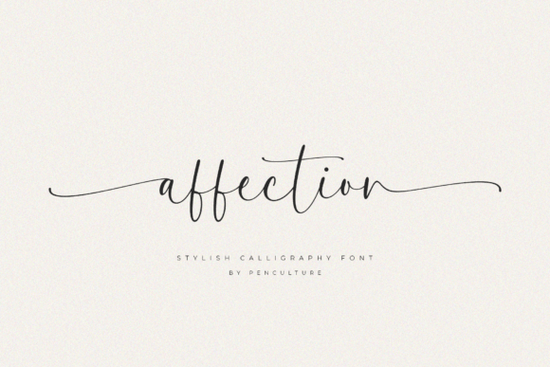
If you're looking for a relaxed, elegant script font that works just as well on a wedding invitation as it does on an Instagram story or small-batch greeting card, Affection Font is worth your time. It’s not overly ornate or fussy just clean, confident calligraphy with subtle swashes and gentle curves that feel personal and warm. Designed with real-world use in mind, it’s the kind of typeface that helps your message land without shouting.
What makes Affection Font different from other script fonts?
Many script fonts lean too far into either formality or playfulness but Affection strikes a quiet balance. Its letterforms are simple but never basic; its swashes flow naturally, not forced. You’ll notice how the lowercase “g” and “y” have soft, open tails, and how the uppercase “S” and “Q” carry just enough flair to stand out without needing extra ligatures or alternates to feel complete.
This makes it especially handy if you’re designing for print-on-demand products like mugs, tote bags, or framed quotes. There’s no need to over-edit spacing or add decorative flourishes the rhythm is already built in. And because it’s a single-weight, single-style font (no bold or italic variants), it avoids visual clutter in layouts where consistency matters most.
Where does Affection Font work best?
It shines in contexts where warmth and sincerity matter:
- Wedding stationery from save-the-dates to place cards, it adds personality without competing with floral motifs or minimalist layouts
- Small business branding think café menus, boutique packaging, or local service logos where friendliness supports trust
- Social media graphics short quotes, event announcements, or seasonal posts benefit from its readability at smaller sizes
- Handmade greeting cards & digital downloads crafters and designers alike appreciate how easily it pairs with watercolor textures or clean sans-serif pairings
How does it compare to similar fonts on Creative Fabrica?
If you’ve used Marney Holland, you’ll recognize the same attention to natural stroke variation but Affection feels lighter and more spontaneous. It’s less structured than Bromello, which leans into tighter spacing and sharper angles. For those who love handlettering energy but want something more consistent across characters, the Handlettering Fonts Collection offers variety, while Affection delivers focus.
And if your project centers around relationships whether romantic, familial, or community-focused you might also consider browsing the Relationship Font collection. But for a single, versatile option that fits quietly into many themes, Affection stands out for its restraint and charm.
Practical tips for using Affection Font well
Here’s what works and what doesn’t based on real usage by designers and crafters:
- Pair it with a neutral sans-serif (like Montserrat or Lato) for contrast never another script font unless you’re intentionally layering for texture
- Avoid all-caps settings: its strength lies in word-level rhythm, not individual letters shouted in uppercase
- Use OpenType features sparingly: only enable swashes on first letters or key words not every line
- Test legibility at 14–16pt for body text: it holds up better than many scripts, but still isn’t meant for long paragraphs
One thing users consistently mention: Affection prints cleanly even on budget paper stocks. That’s rare for script fonts, and it matters if you’re producing physical goods at scale or just mailing a batch of thank-you notes.